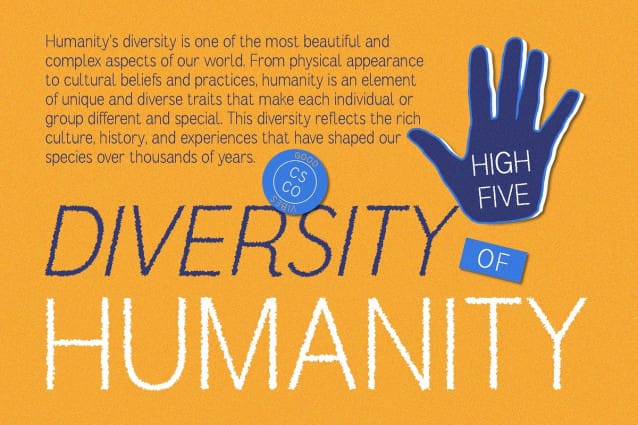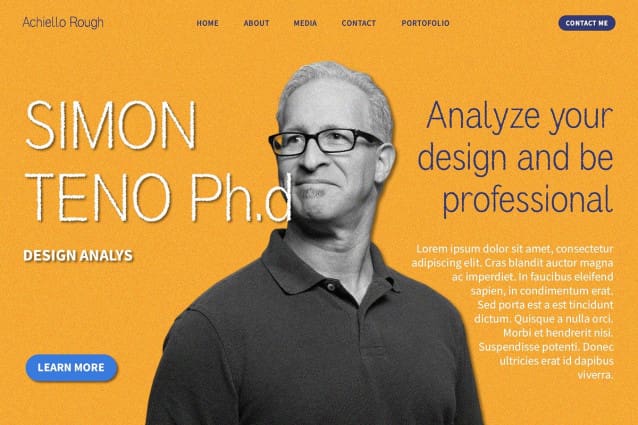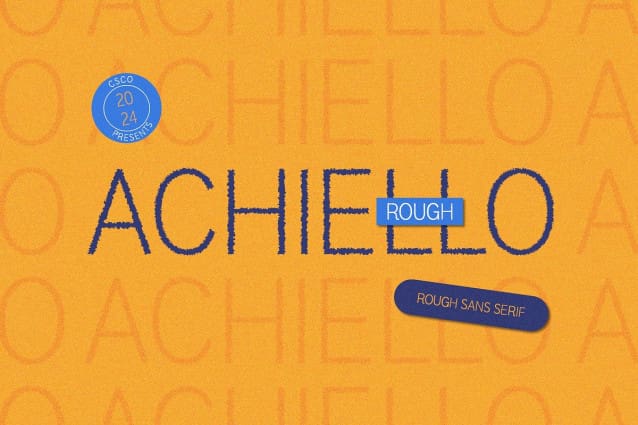
Achiello Rough Font
Achiello Rough Font: Embodying Display Elegance. Rugged Sophistication in Thin Sans Serif Achiello Rough combines the delicacy of a thin sans serif with the rugged charm of rough effects, resulting in a visually captivating typeface.
Striking Visual Impact The rough texture adds depth and character to each letterform, ensuring a striking visual impact in display settings and drawing the viewer’s attention with its unique aesthetic.
Tailored for Display Needs Crafted specifically for display purposes, This font excels in catching the eye and commanding attention, making it an ideal choice for headlines, posters, and other prominent design elements.
Versatile Application Across Various Contexts Despite its thin appearance, This font proves versatile across various design contexts, from branding to advertising and beyond, offering flexibility and creativity in its usage.
Where Elegance Meets Edge This font merges elegance with edge, offering a refined yet distinctive option for display typography. Its thin sans serif form, coupled with rough effects, creates a compelling visual contrast suitable for a wide range of design applications. Step into the world of This font and add a touch of rugged sophistication to your next project.